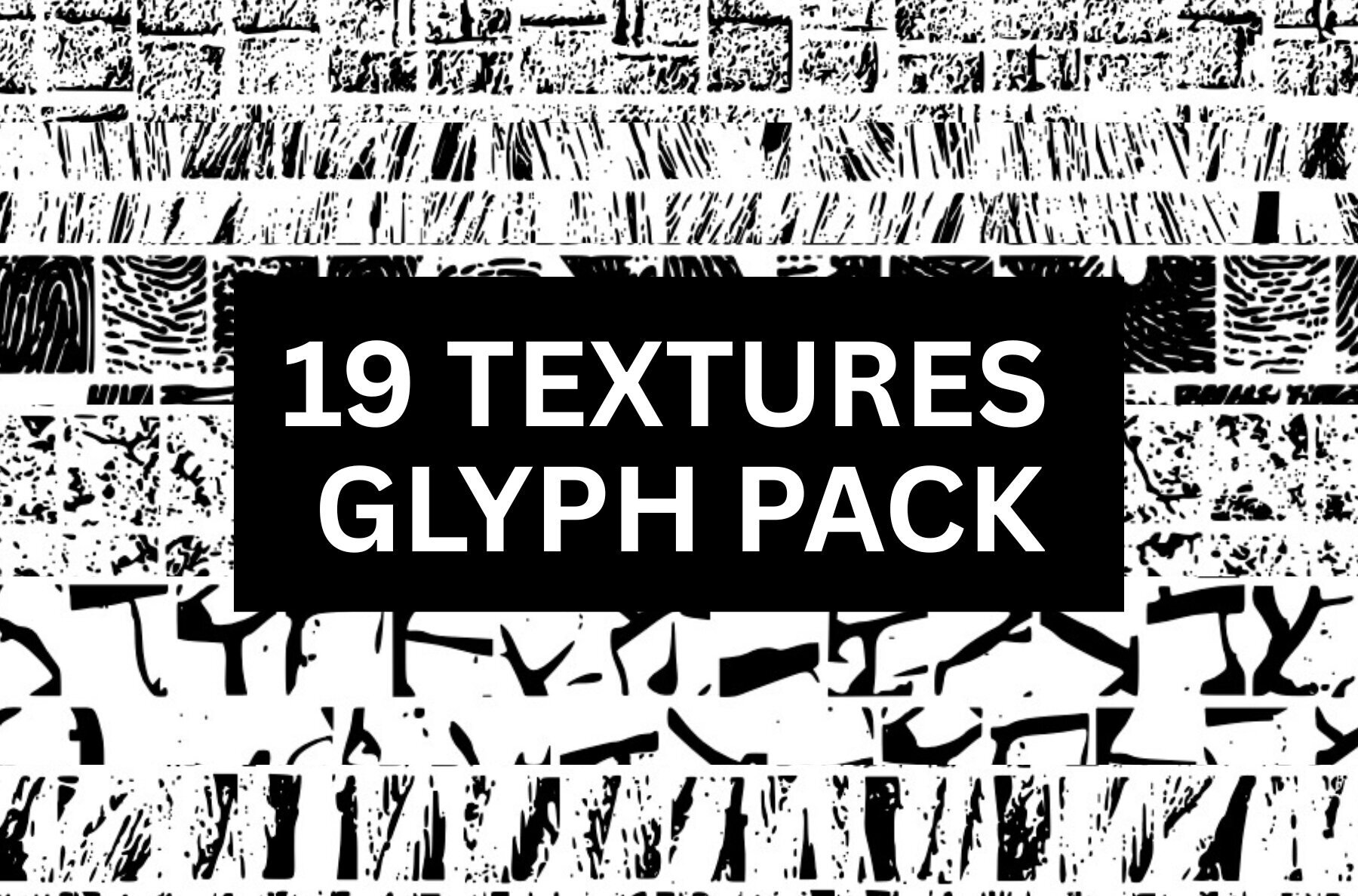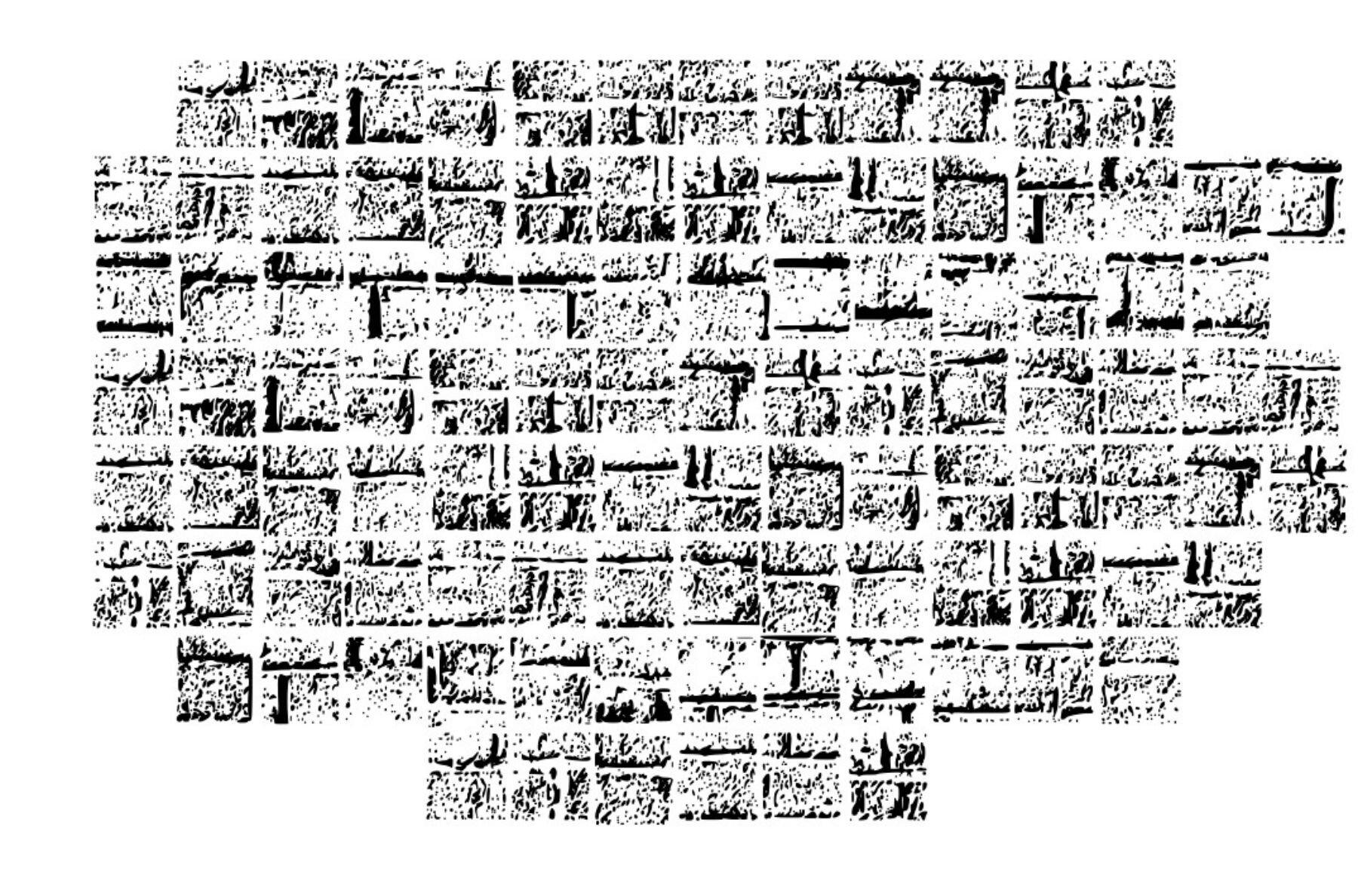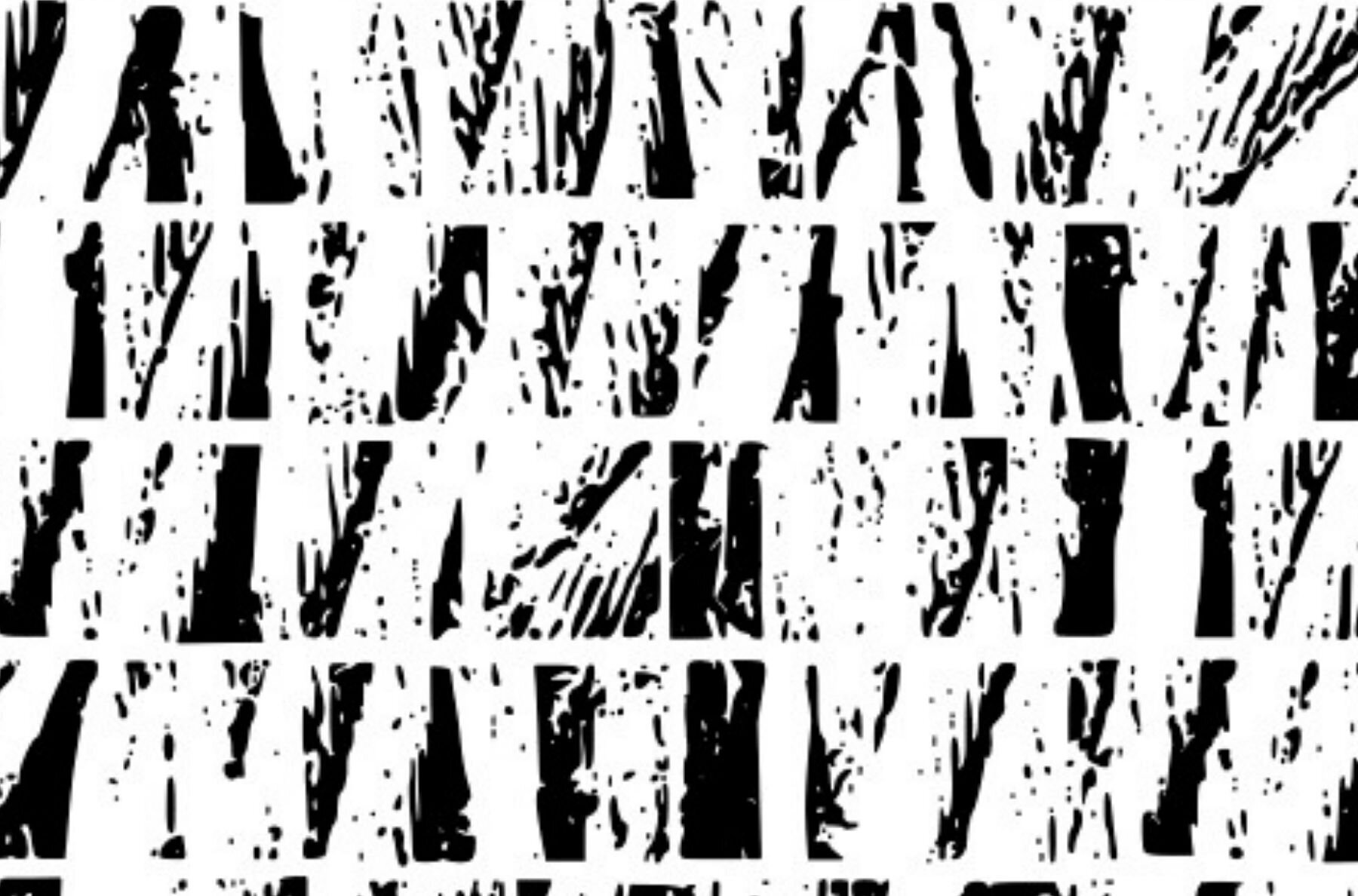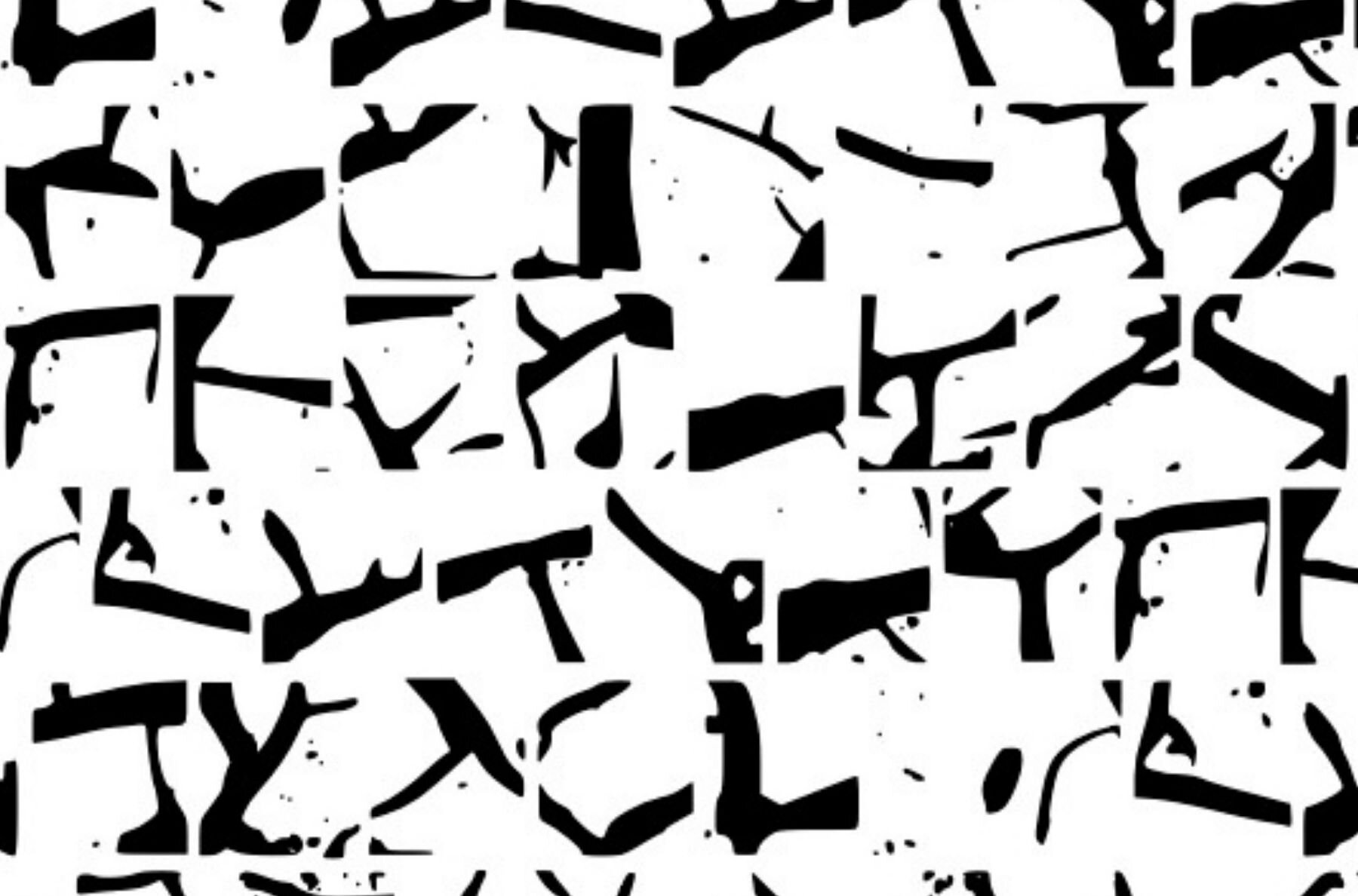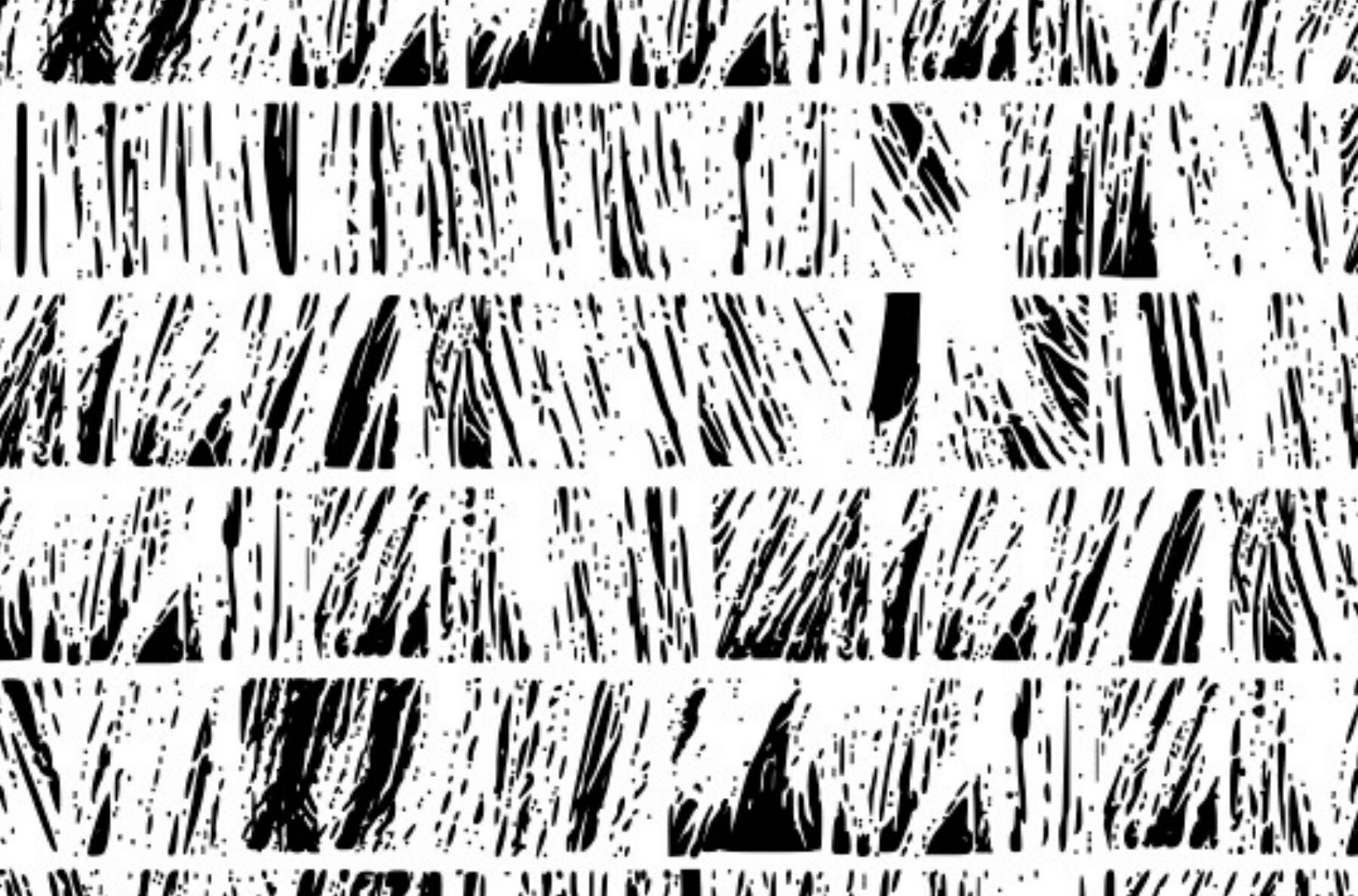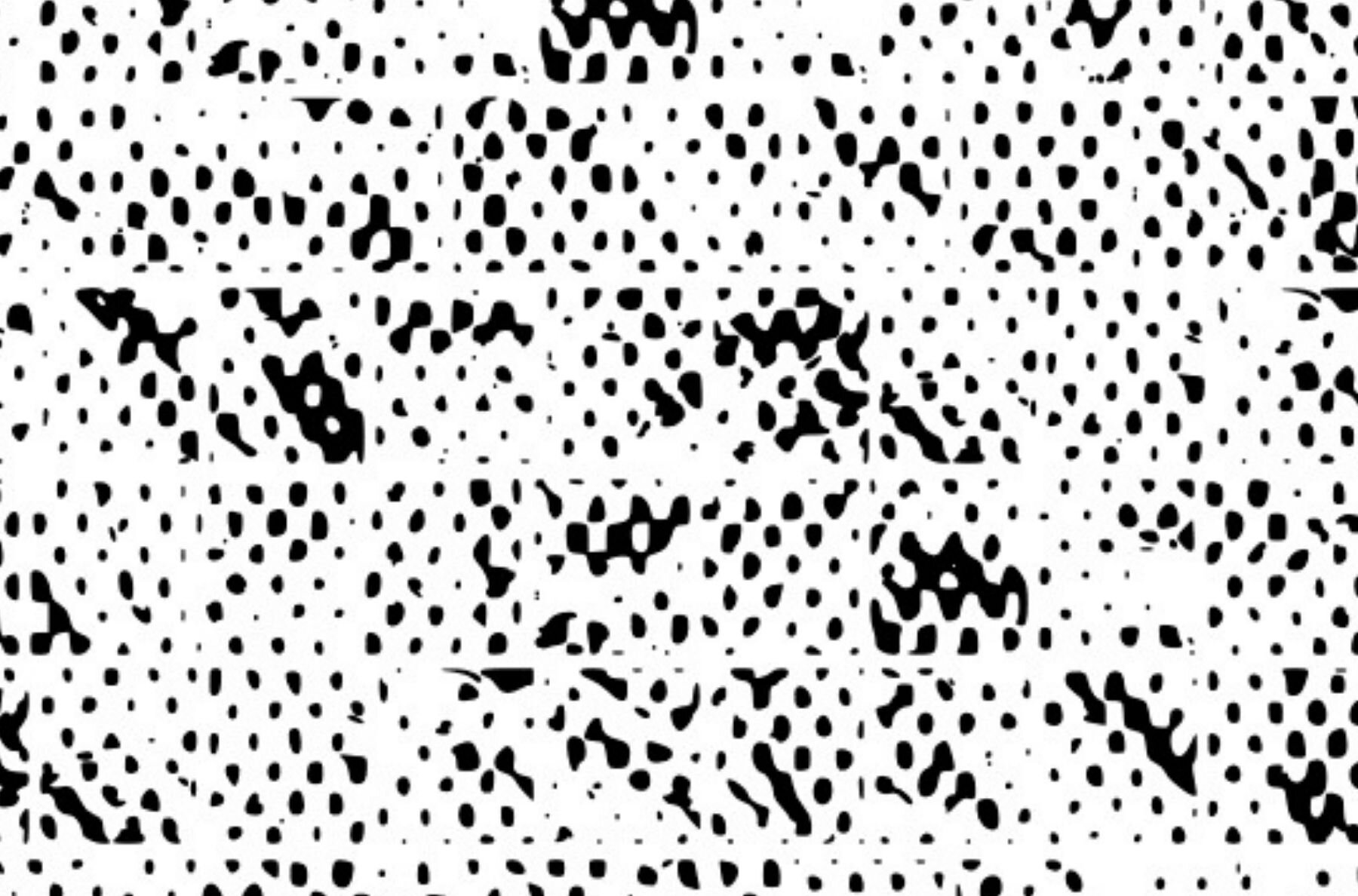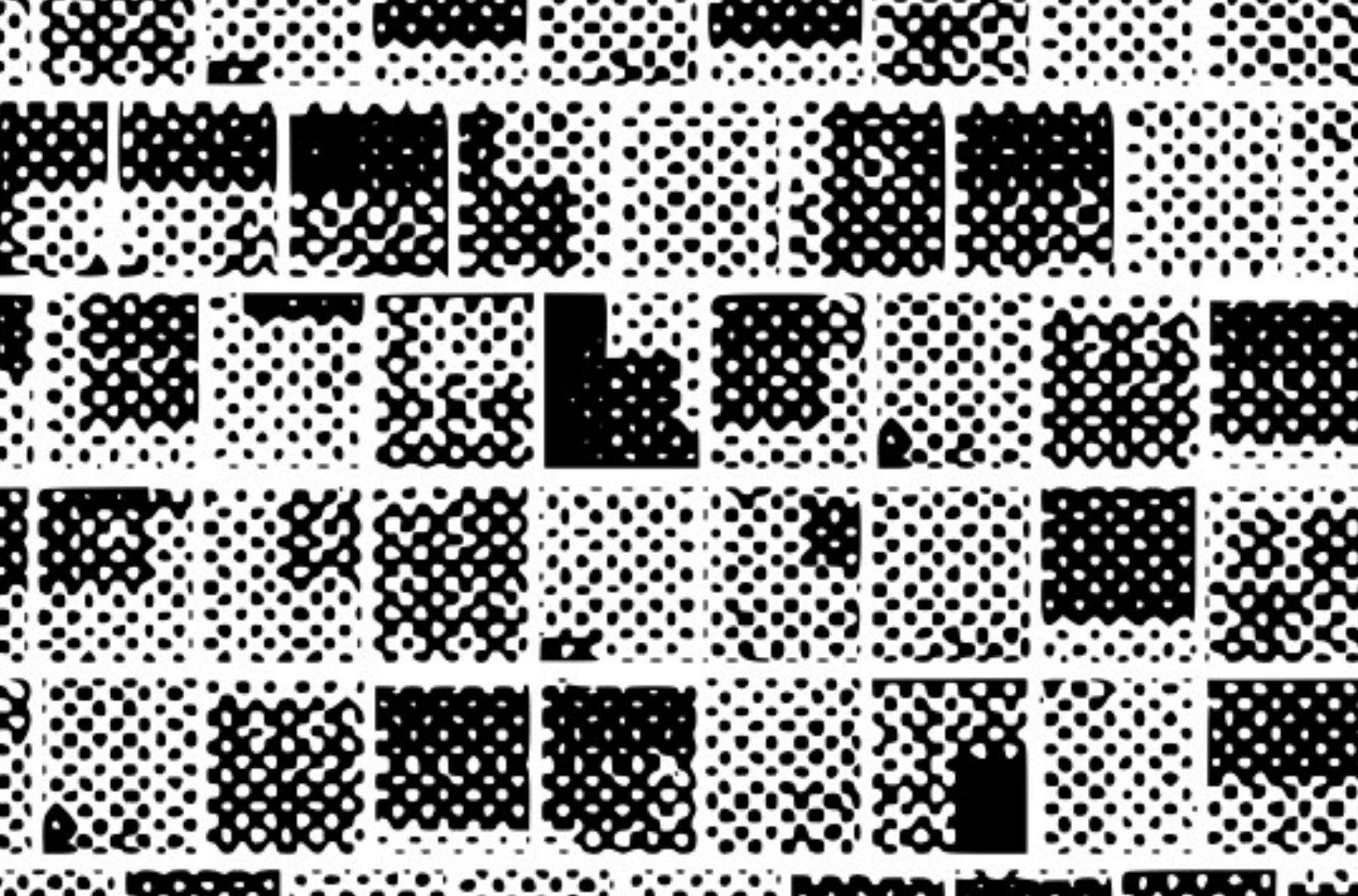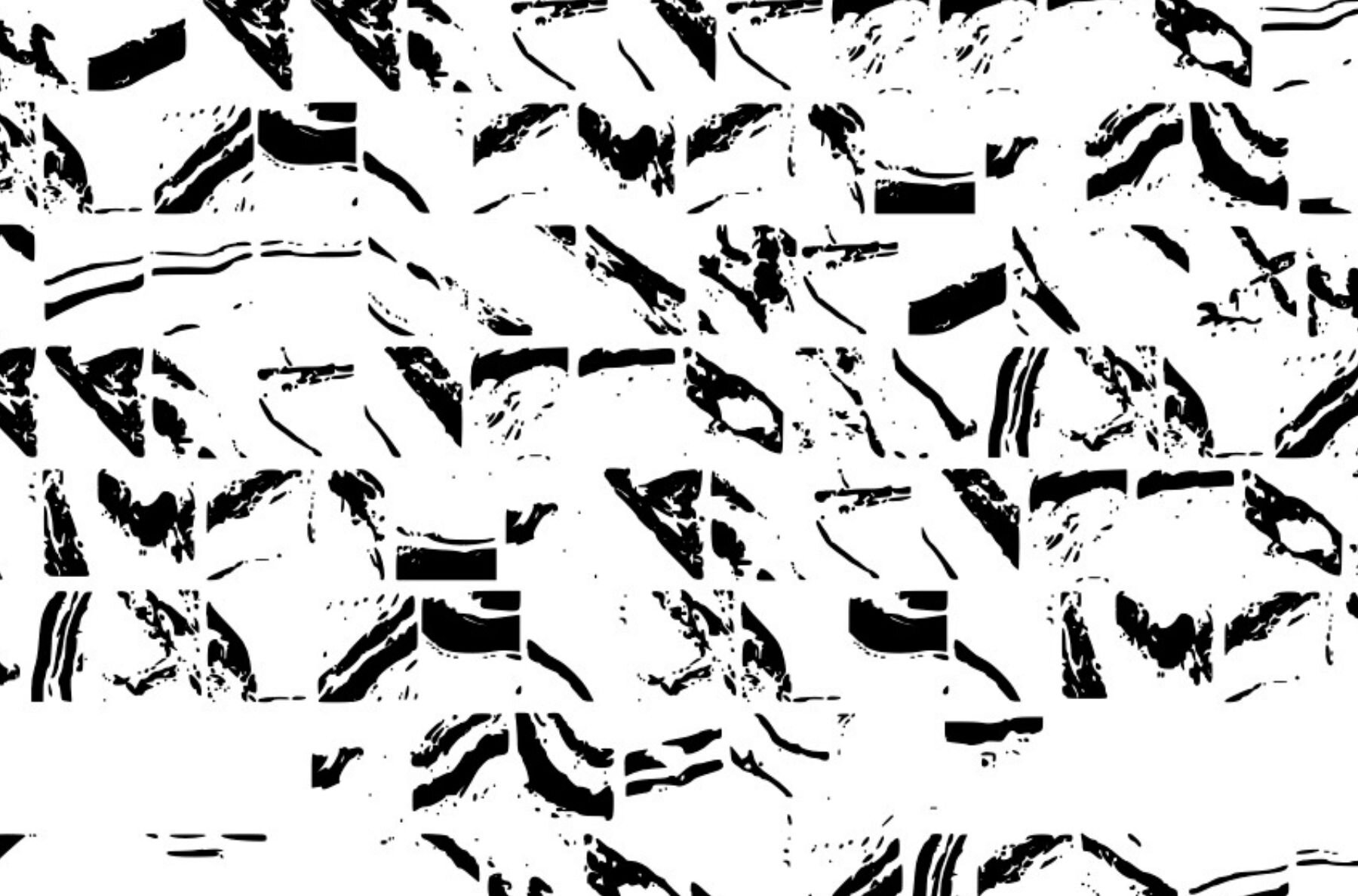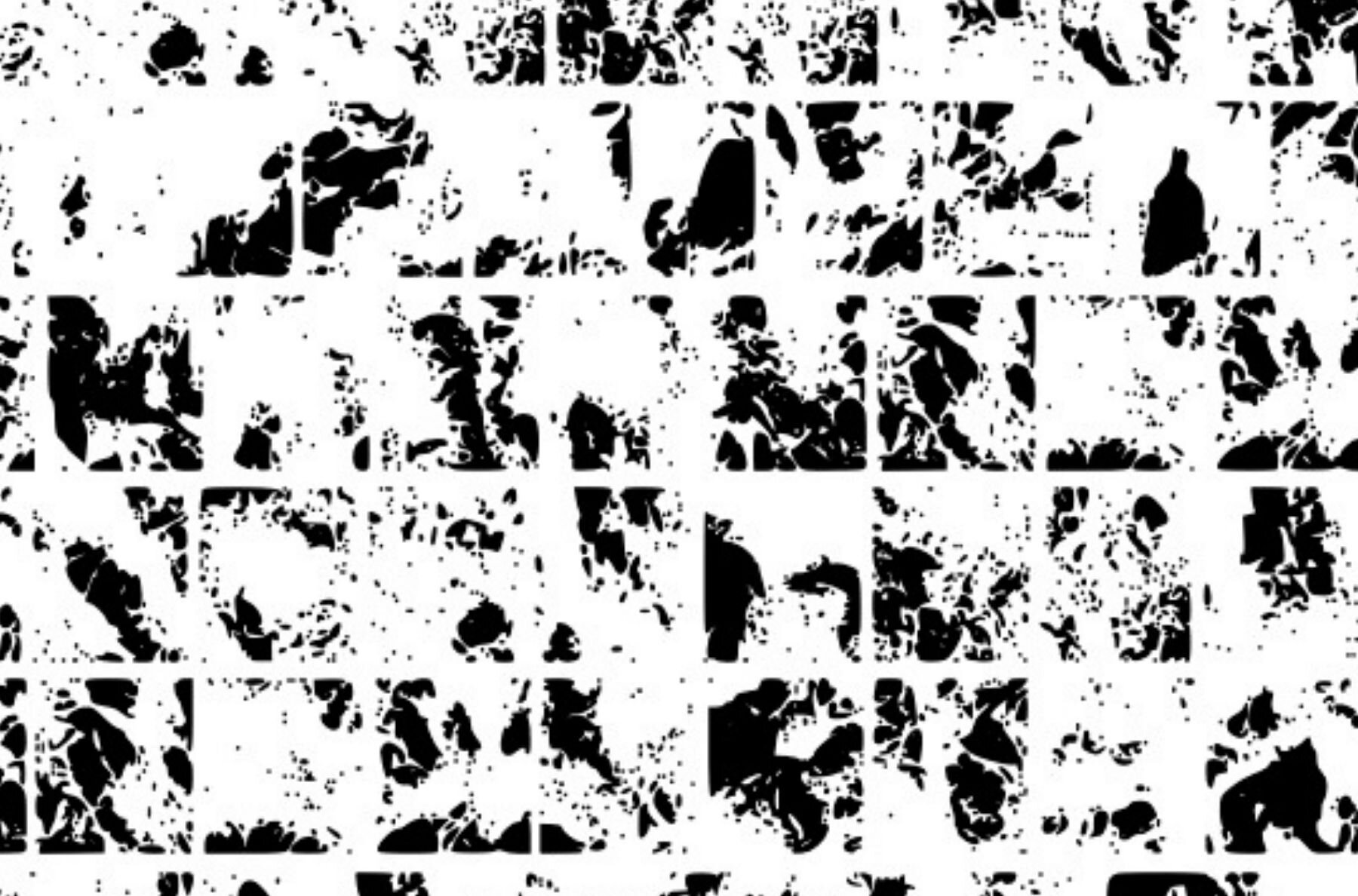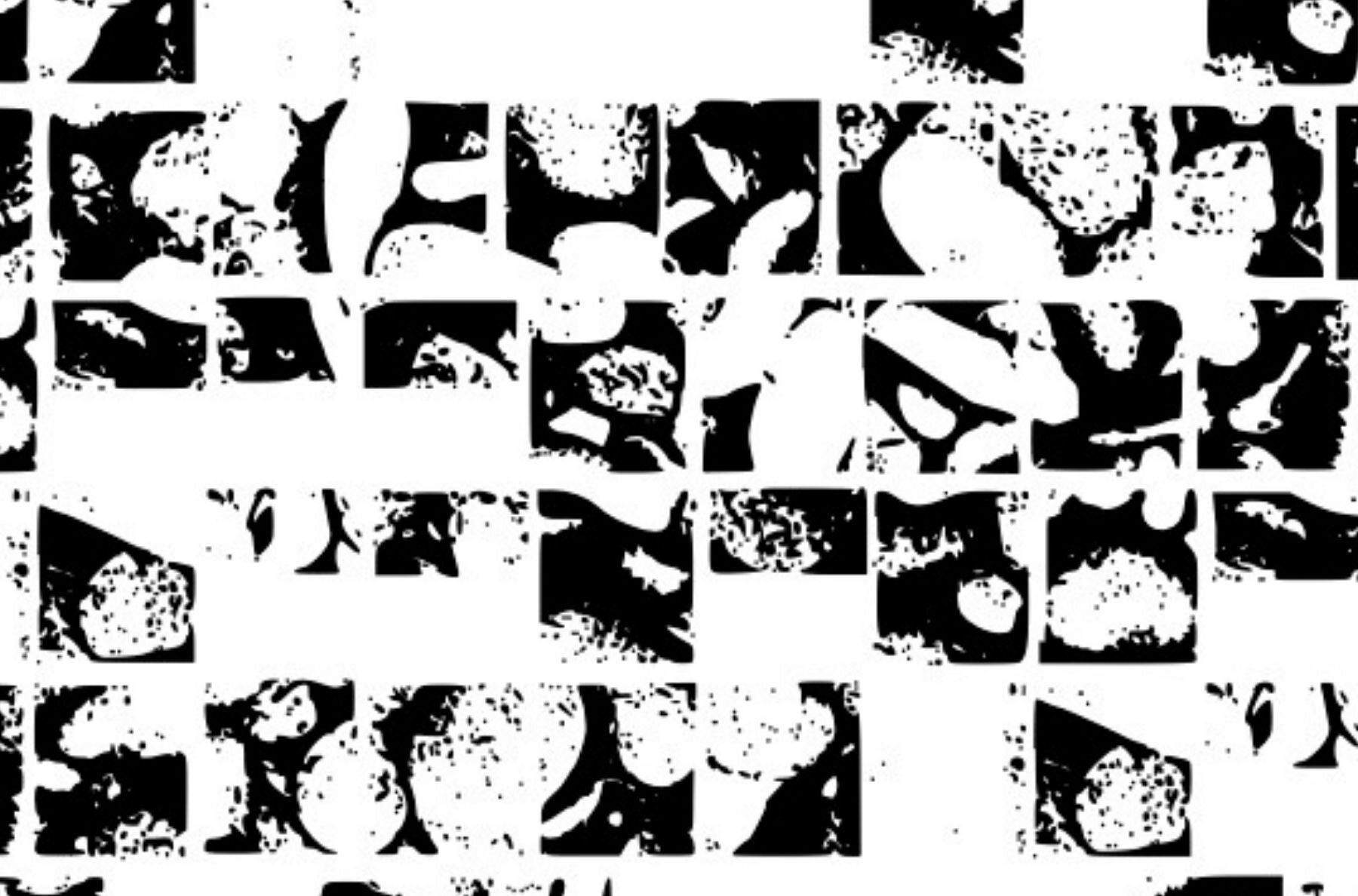
19 Textures Font
Explore the diverse world of textures with the 19 Textures collection by Graphics Bam. This expansive glyph pack is comprised of a unique array of both natural and man-made textures, making it an invaluable asset for any design or craft project.19 Textures by Graphics Bam